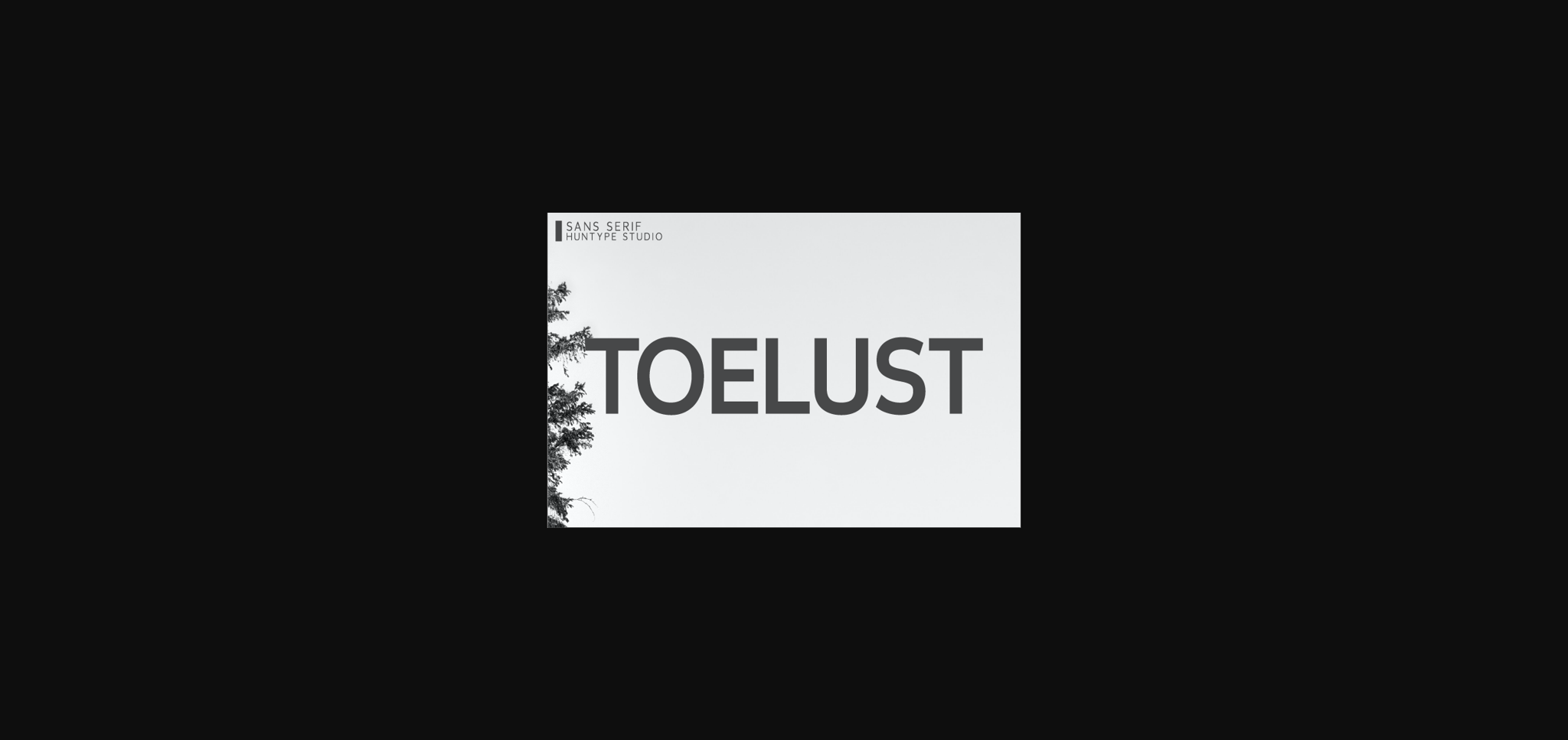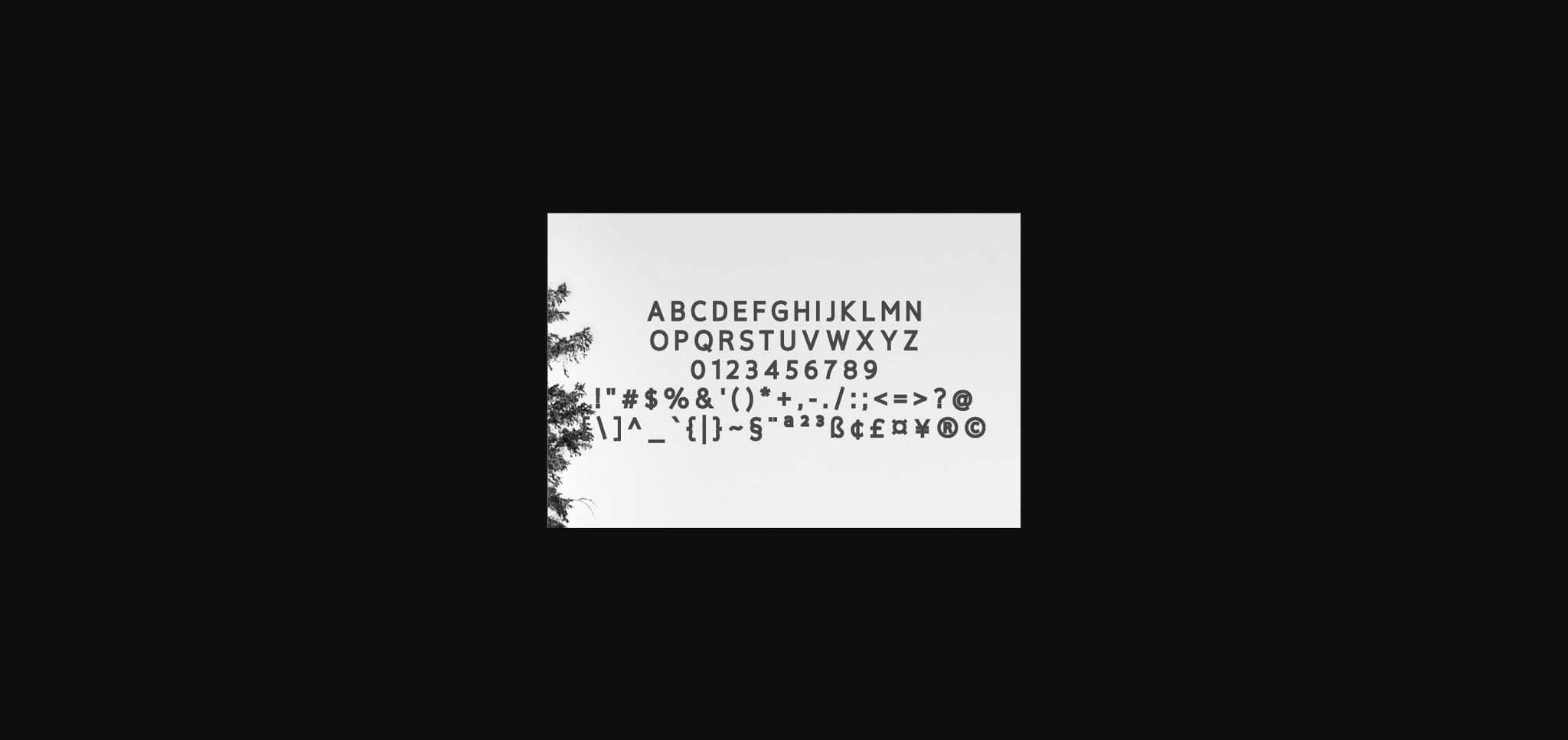
HomeSans Serif FontsToelust Font Sans Serif Fonts Toelust Font FacebookXPinterestWhatsApp 1 of 4 ... Toelust Font Poster 2... Toelust Font Poster 3... Toelust Font Poster 4... About Toelust Font Toelust is a distinct, elegant sans serif font that blends traditional influences into a contemporary aesthetic. It will look particularly adept when used in logos, branding, packaging design, and much more. DOWNLOAD NOW People also explored Adzkia Font Angela Font Marina Font Beautiful Dream Font Magethai Font Jackson Benton Font Samora Font Beauty Font Kimberlyn Font 497 0 TagsToelustToelust Font Previous articleBeltran FontNext articleSexyton Font LEAVE A REPLY Cancel reply Comment: Please enter your comment! Name:* Please enter your name here Email:* You have entered an incorrect email address! Please enter your email address here Website: Save my name, email, and website in this browser for the next time I comment. Personal Use Free Goodline Font Personal Use Free Read more about this font Love Baby Personal Use Free Read more about this font Alnair Star Personal Use Free Read more about this font Shelly Personal Use Free Read more about this font BLOG 5 Fonts That Will Dominate Design Trends in 2026 5 Fonts for 2026 That Will Dominate Design Trends Typography plays a critical role in visual communication, and as we look ahead to 2026, it’s... The 10 Best Handwriting Fonts to Add Personality to Your Designs Free vs Paid Fonts: Why Investing in Premium Fonts Is Worth It Exploring Font Trends